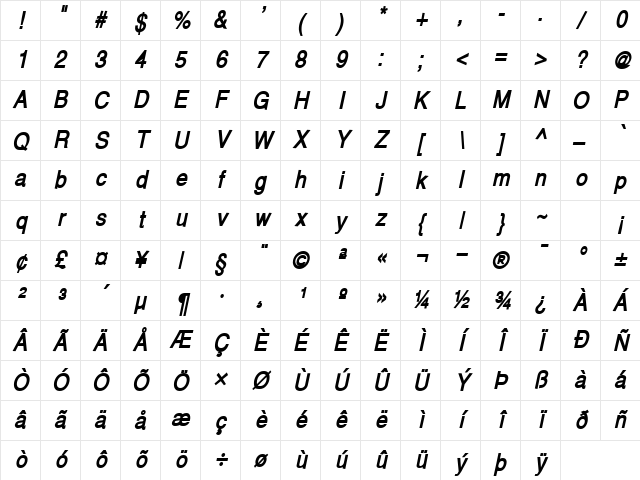
Complete Alps-Condensed Bold Italic glyph index. Displaying only characters natively supported by Alps-Condensed Bold Italic font.
Alps-Condensed is a composed and adaptable typeface that performs quietly and consistently across a wide range of design contexts. The slanted form adds forward momentum and visual energy. Its bold stroke weight gives it real presence on the page. Its narrow stance lets it pack a punch even in space-constrained designs.